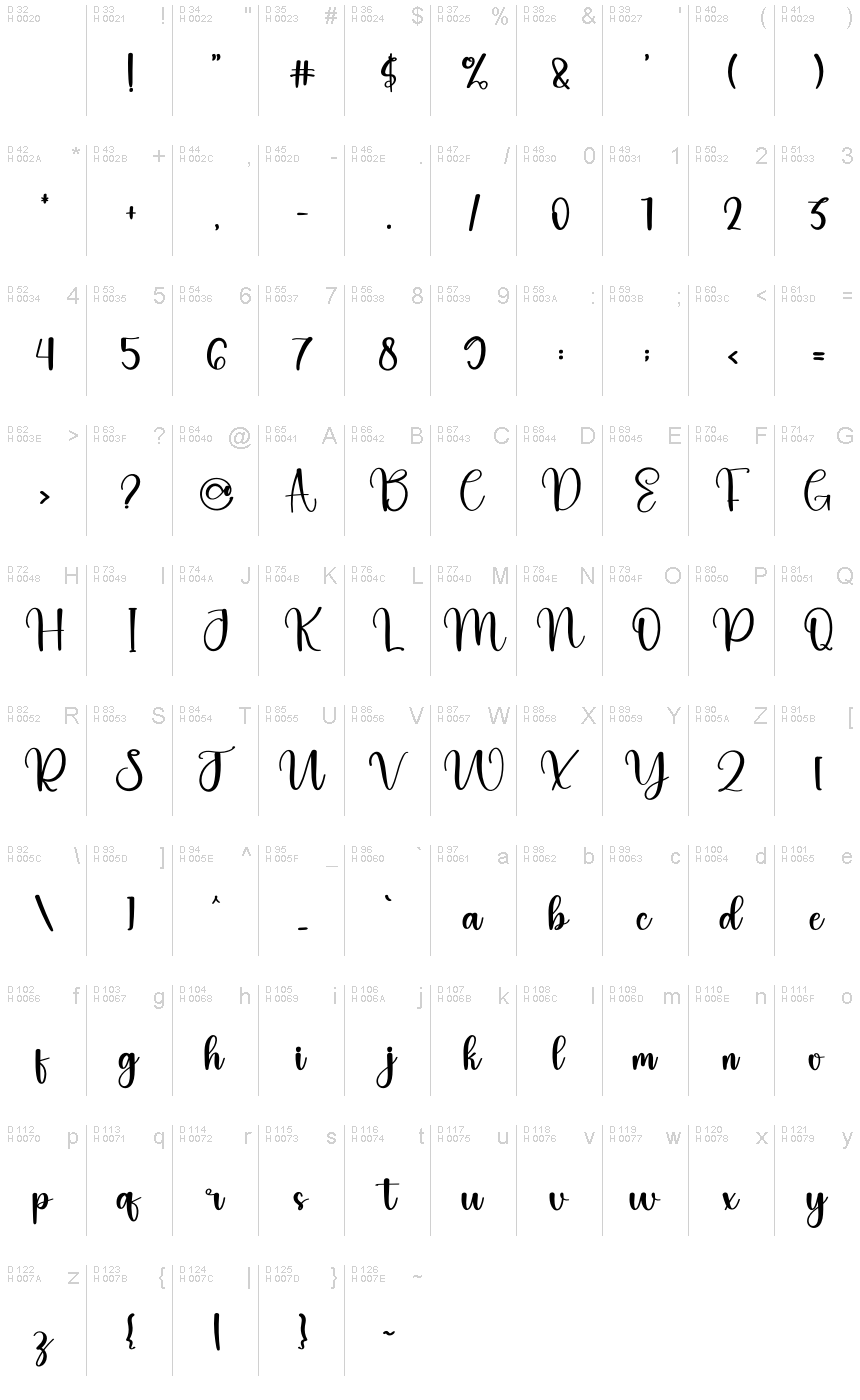
Halft
Halft font by Inermedia Studio is a calligraphy typeface in cursive style, featuring connected letters and an elegant flow. This font has thick and thin strokes that give it high contrast with smooth curves. A playful mood enhances this handwritten style.
Halft is great for several purposes such as wedding invitations, headings, signature logos, t-shirts, letterhead or posters. This font will enhance branding projects and websites in stunning ways. It also works well on signs/billboards and could be the ideal choice for your next project requiring a touch of elegance! Surely Halft would become a must-have part of any designer’s toolkit!